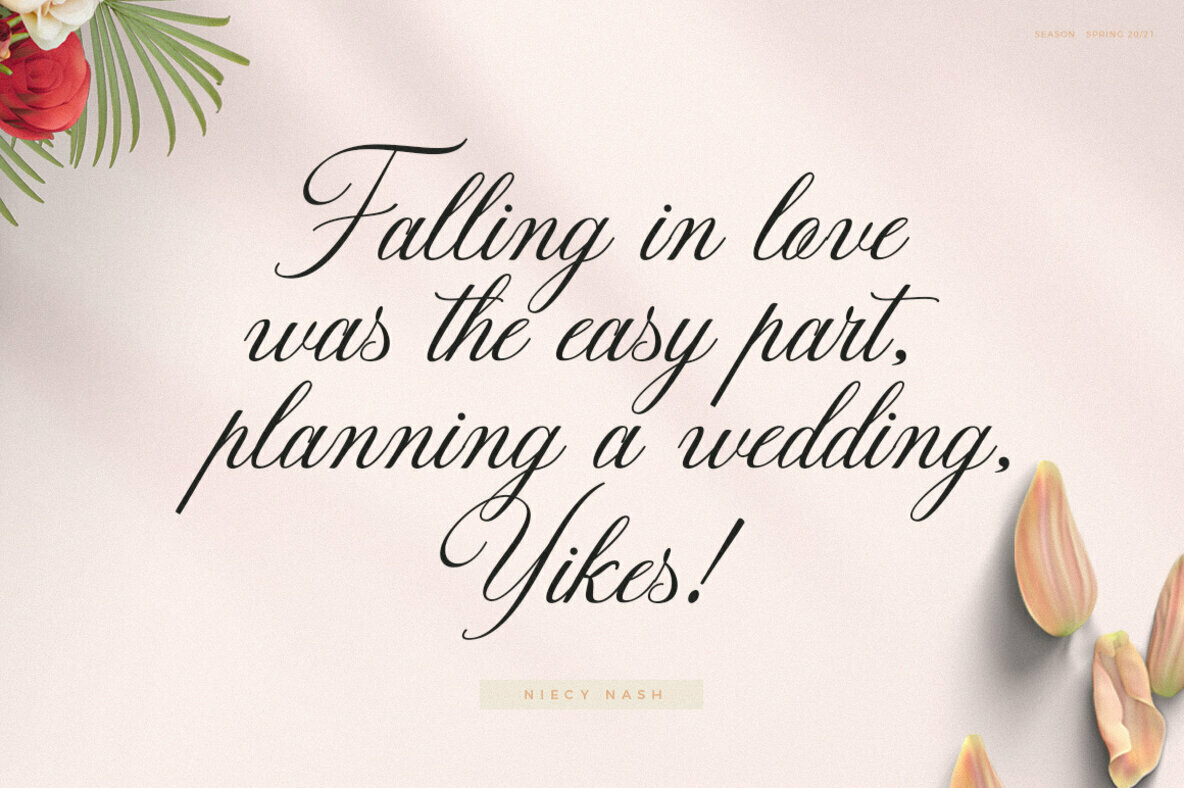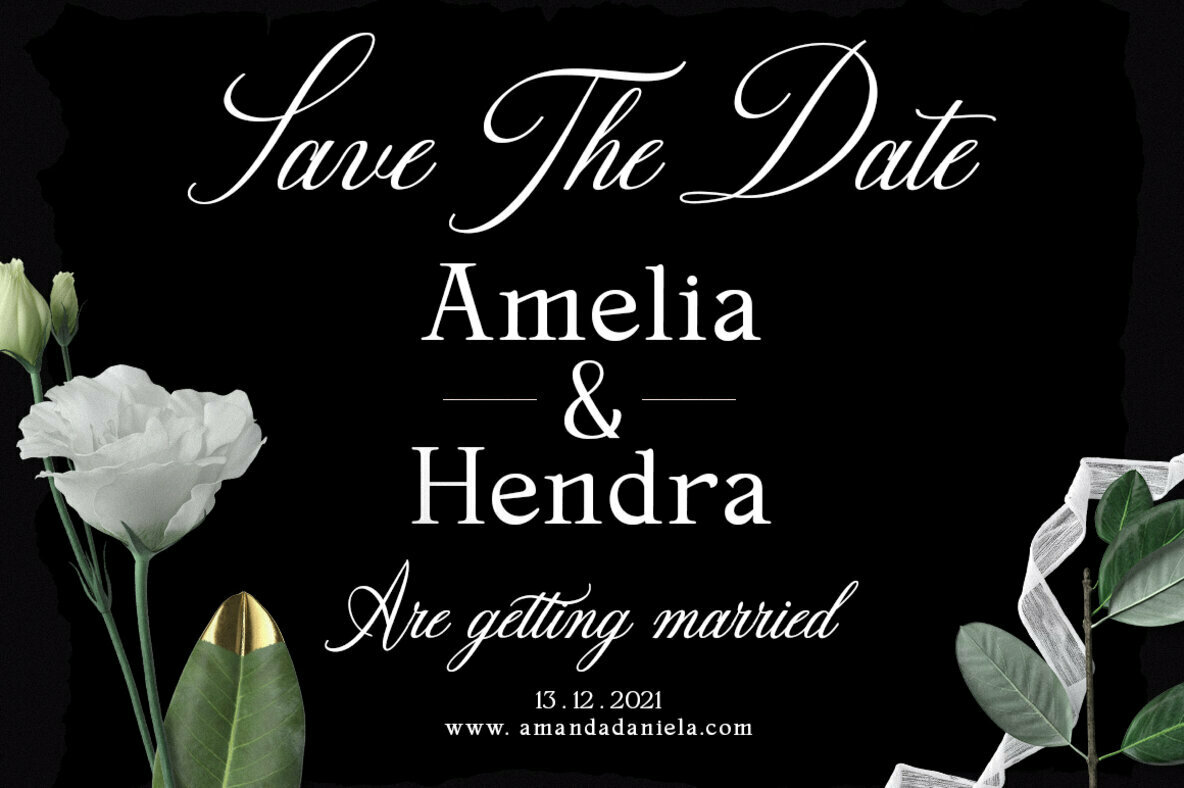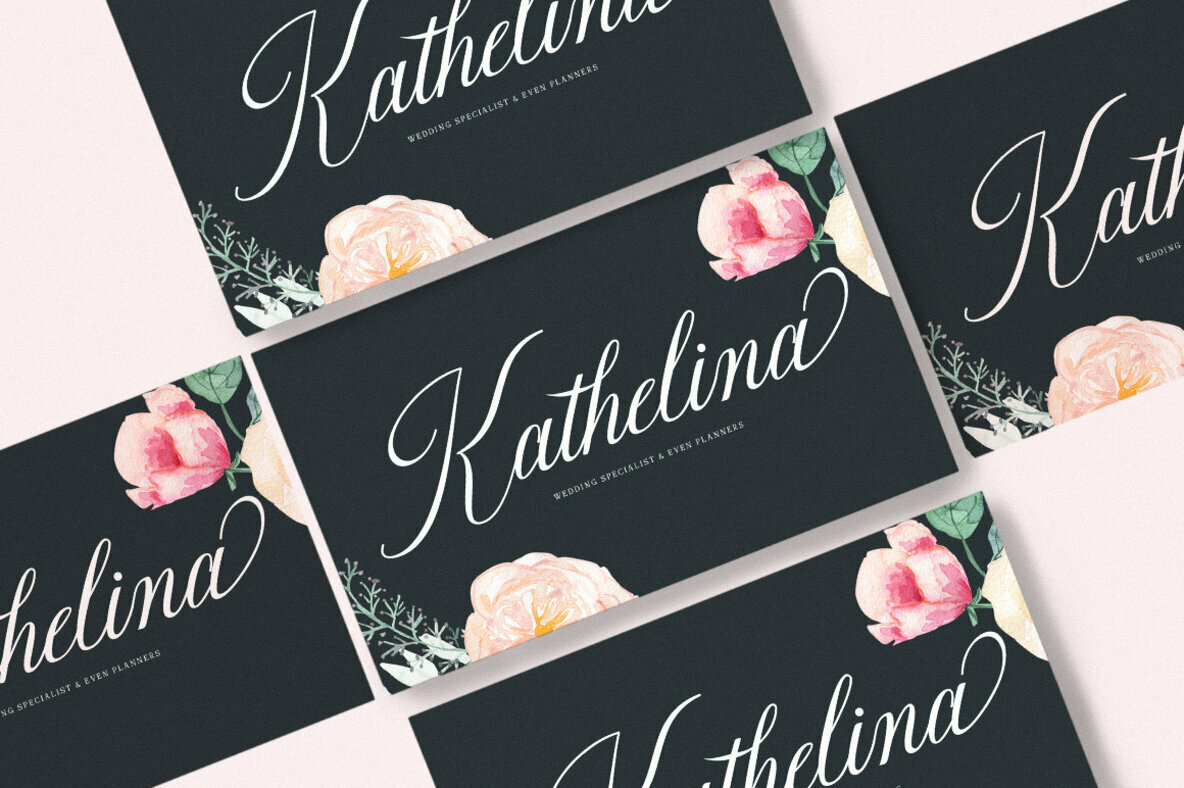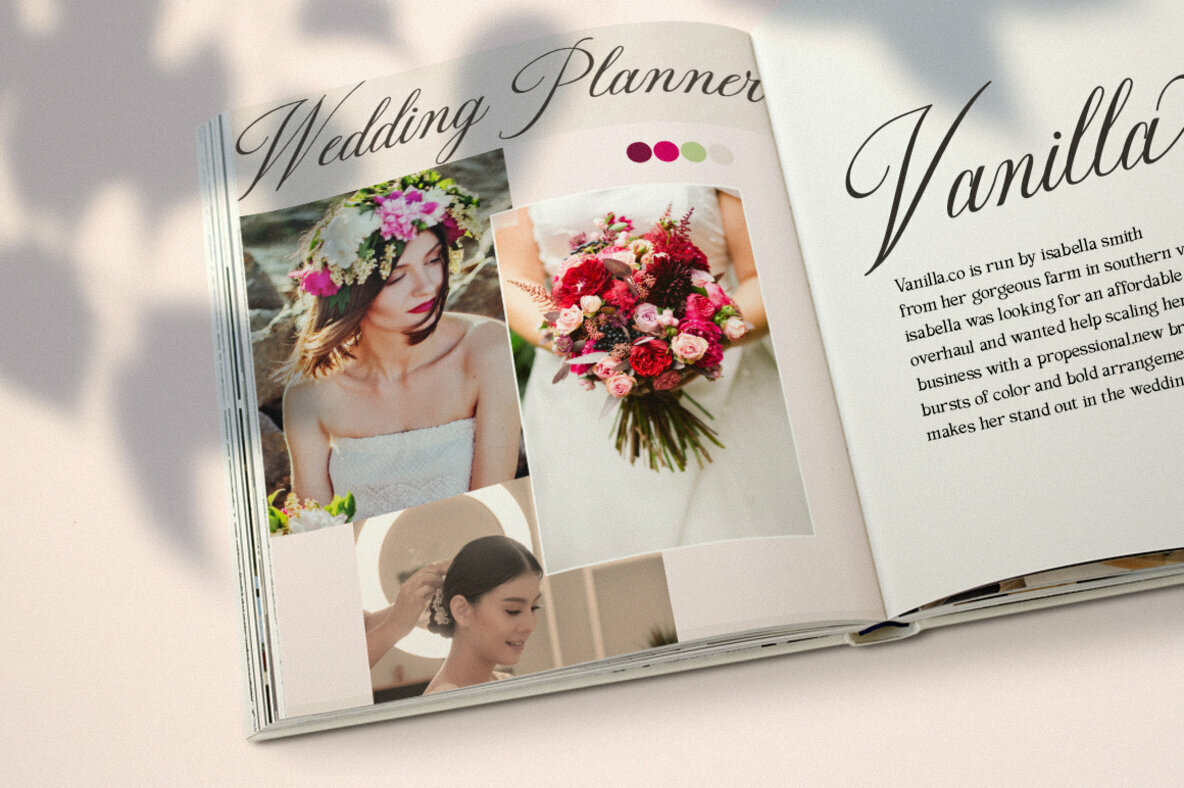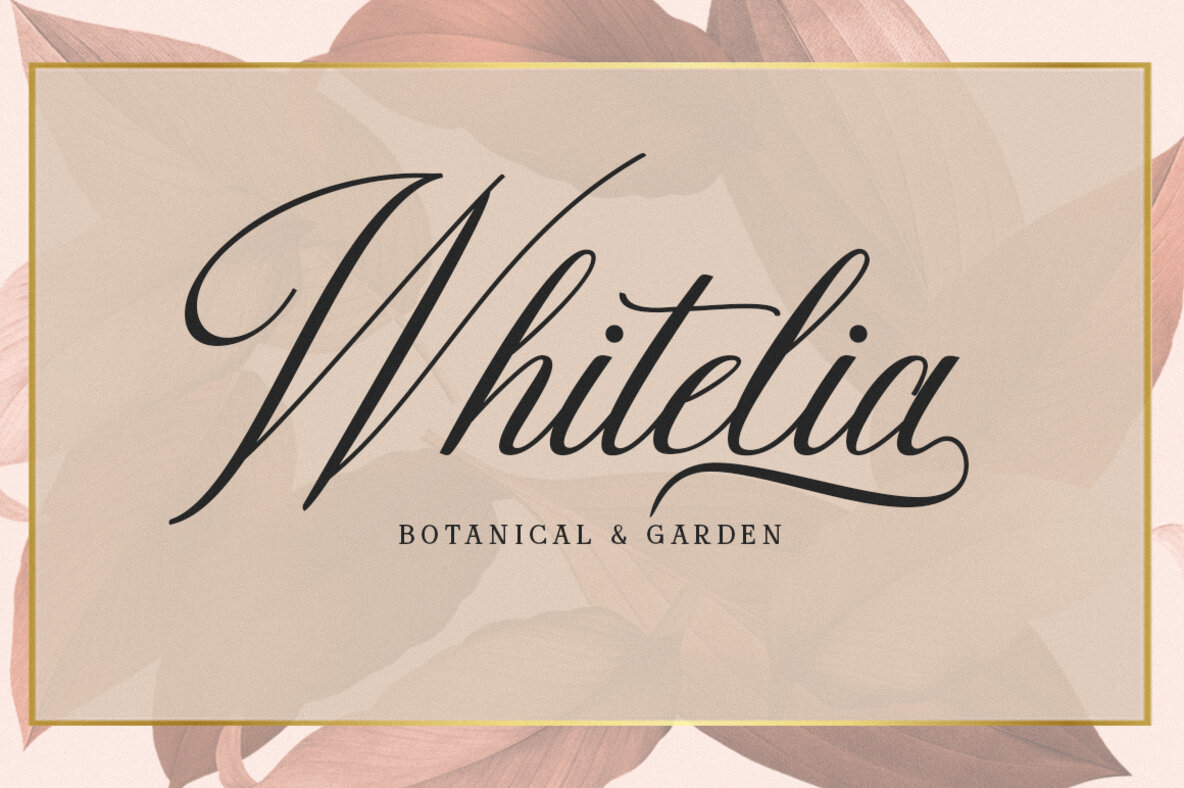
Darshye Script Font
Darshye Script
Darshye Script captures the essence of classic copperplate calligraphy with a contemporary flair, offering an array of exquisite character variations and detailed design elements. The font’s refined, clean lines and soft aesthetic make it ideal for creating an effortlessly elegant and feminine appeal. This calligraphic typeface shines in creating formal pieces such as invitations, labels, menus, and logos, as well as fashion and beauty branding. Additionally, its modern elegance is well-suited for stationery, book covers, and various advertising materials.Darshye Script: Elegant and Modern Calligraphy